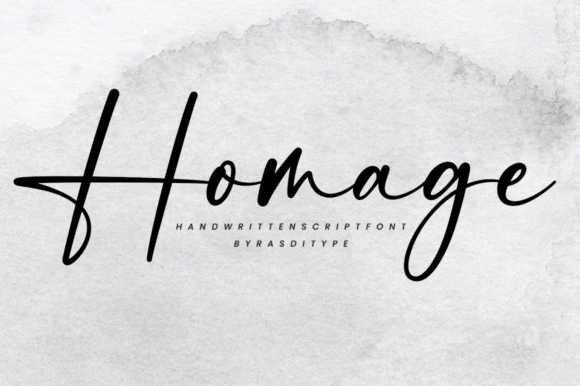
About Homage Font
“Homage” emerges as a font that embodies loveliness and delicacy, carrying an air of elegance and class in its script design. Its graceful strokes and intricate details contribute to an aesthetic that exudes sophistication and visual appeal. This font’s PUA encoding feature adds an extra layer of convenience, allowing easy access to its comprehensive collection of glyphs and swashes.
The charm of “Homage” lies in its ability to enhance the visual allure of your work with its delicate and refined appearance. Its carefully designed characters exude an air of sophistication, making it suitable for a variety of design projects that require a touch of elegance.
Whether used for branding, invitations, logos, or any creative endeavor, “Homage” becomes a powerful tool. Its delightful charm can add a layer of authenticity and class to your projects, making them stand out with their timeless beauty.
Incorporating “Homage” into your design projects means embracing its lovely and delicate attributes. By harnessing its unique charm, you’re enhancing the visual allure of your work and ensuring that your designs resonate effectively with your intended audience. This font becomes a versatile instrument for infusing your creations with a touch of elegance and refinement, while the PUA encoding feature further expands your creative possibilities.